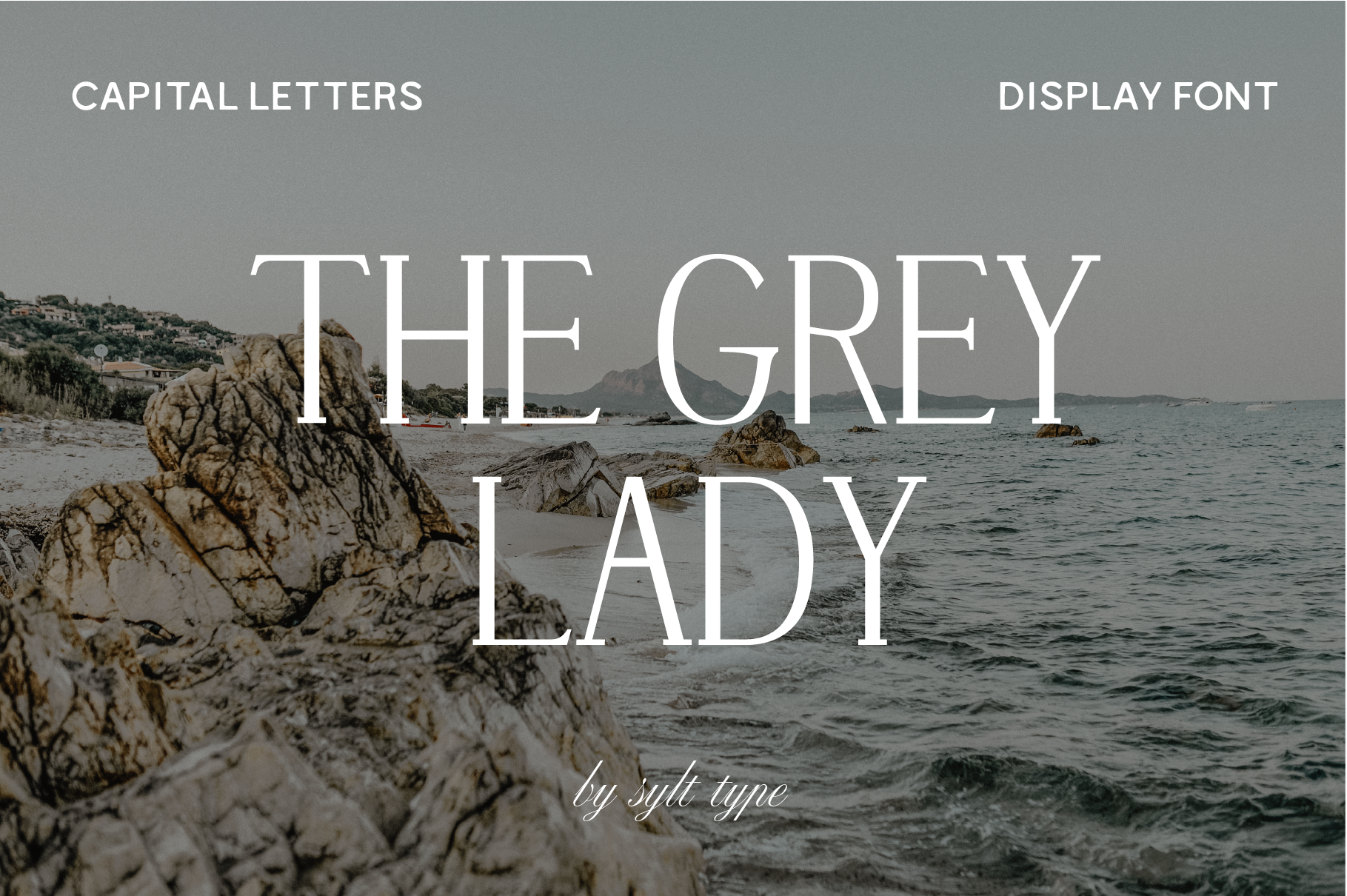
The Grey Lady Nantucket Display Font
Nantucket is an all-caps display font perfect for your logo designs. Simple yet elegant, Nantucket adds a sophisticated touch to your logo and brand.
Capital letters & limited punctuation (comma, period, hyphen, single quote/apostrophe, double quote)